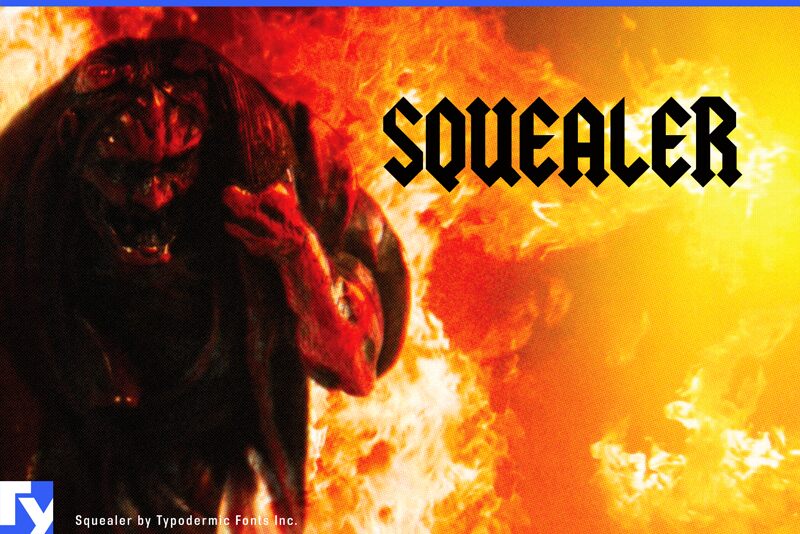
Squealer by Ray Larabie is a free modern blackletter font built from dense, angular strokes and sharply cut points. Diamond-like joins give its broad letters a forceful Gothic profile.
A concert poster is the strongest setting for this hard-edged lettering, with album packaging, game graphics, and wrestling merchandise sharing its aggressive theatrical edge. For music labels and entertainment brands, the pointed letterforms can become part of an emblem or logo with a distinctly menacing identity.